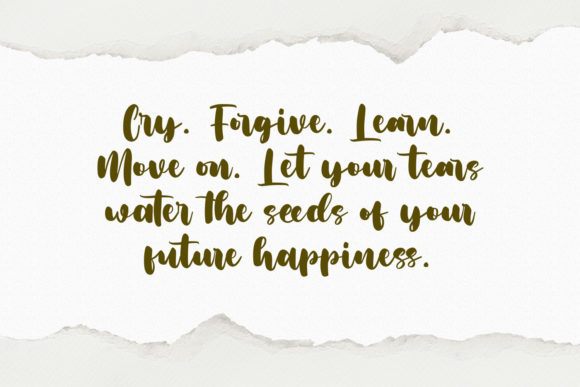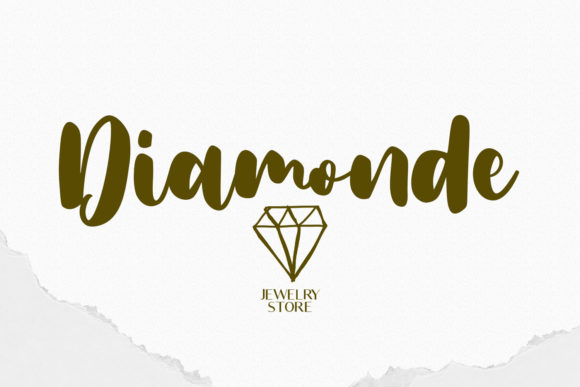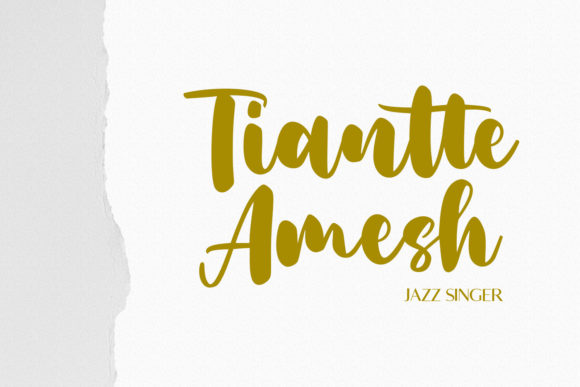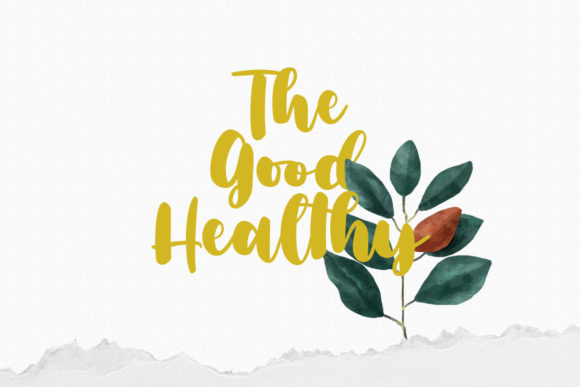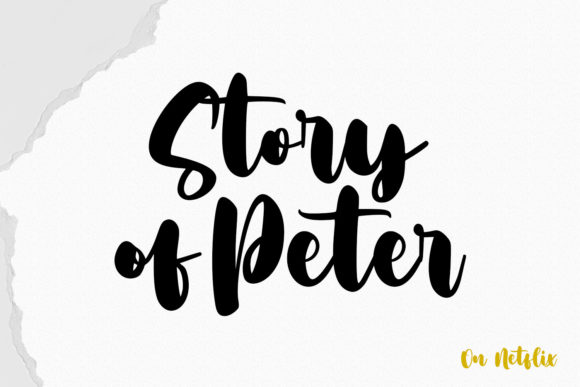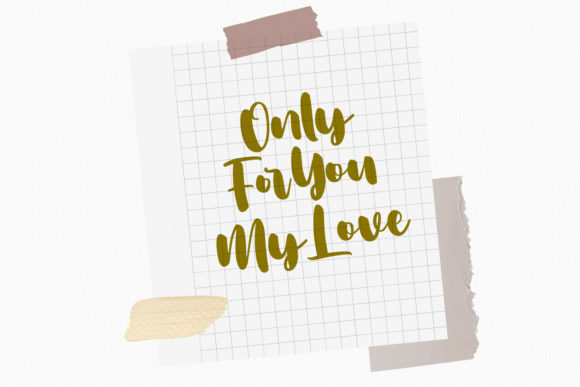
Introduction to Moralstory Font
As a designer, you know that finding the perfect font can be a game-changer for your creative project. There’s that moment when you’re brainstorming ideas and suddenly, a font pops into your head and everything falls into place. For me, it was when I stumbled upon the enchanting Moralstory Font, and I knew I had to share it with the world.
With its unique, handwritten style and natural charm, the Moralstory Font is a high-quality design resource that’s perfect for any creative project. Whether you’re working on a logo, a brochure, or a social media graphic, this font is sure to elevate your design to new heights. Plus, with its transparent background, you can easily layer it with other design elements to create a truly unique look.
Key Features of Moralstory Font
- High-quality design with a transparent background, ideal for creative projects and presentations.
- Features a clean and modern design, perfect for use in logos, branding materials, and other visual identity elements.
- Includes a comprehensive character set, covering a wide range of languages and alphabets.
- Available in a single font size, making it easy to use and customize in various design projects.
Honest Review: Moralstory Font
As a designer, I’m always on the lookout for high-quality design resources that can elevate my creative projects. Recently, I stumbled upon the Moralstory Font, and I must say, it’s been a game-changer.
What works well: ✨ The Moralstory Font is incredibly versatile, making it perfect for a wide range of creative projects. The font’s unique design elements add a touch of elegance and sophistication to any design. The fact that it’s a free download is a major plus, making it an excellent addition to any designer’s toolkit.
- ✨ Transparent background that makes it easy to customize and combine with other design elements
However, there are some limitations: ⚠️ The font’s lack of bold or italic styles can be a bit restrictive for some designers. Additionally, the font’s design can be a bit too ornate for some projects.
Overall impression: The Moralstory Font is an excellent addition to any designer’s toolkit. While it may have some limitations, its high-quality design and versatility make it a must-have for any creative project.
Moralstory Font
The Moralstory Font is a high-quality design resource that offers a free download for creative projects. Its transparent background makes it easy to incorporate into various design elements.
Tips for Getting the Most Out of Moralstory Font
To get the most out of the Moralstory Font, use it in combination with other design elements, such as icons and graphics, to create visually appealing designs.
The Moralstory Font is ideal for:
- Creating custom graphics and logos
- Designing presentations and documents
- Developing social media content
What makes the Moralstory Font a high-quality design resource?
The Moralstory Font is a high-quality design resource due to its clear and legible characters, making it perfect for various creative projects. Its transparent background also allows for seamless integration into designs, ensuring a professional finish.